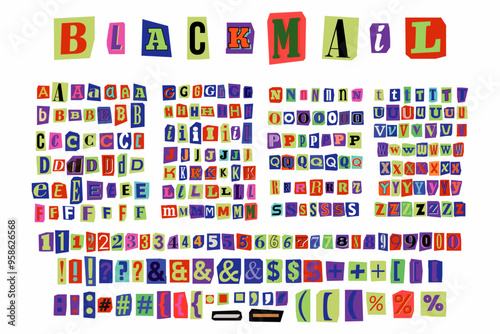
Blackmail Ransom Anonymous Notes Collage Style Font Vector Alphabet. English Latin Colorful Criminal Letters, Numbers and punctuation symbols. Cut out ransom kidnapper Letters